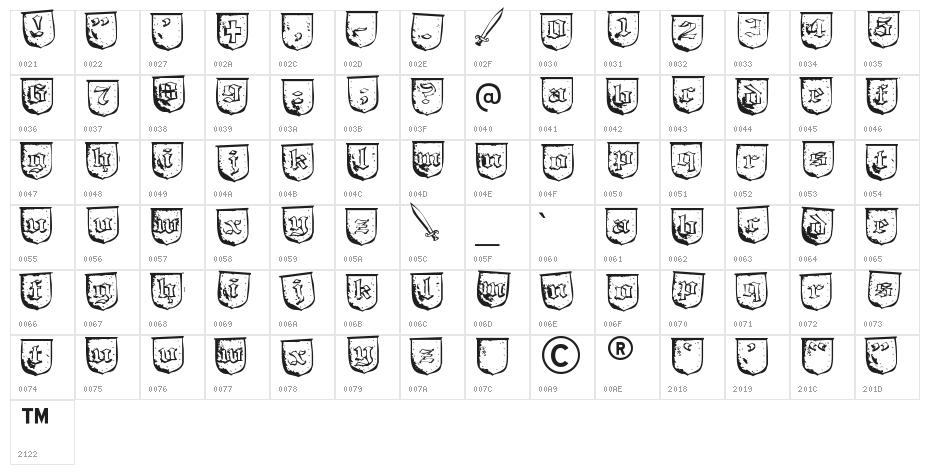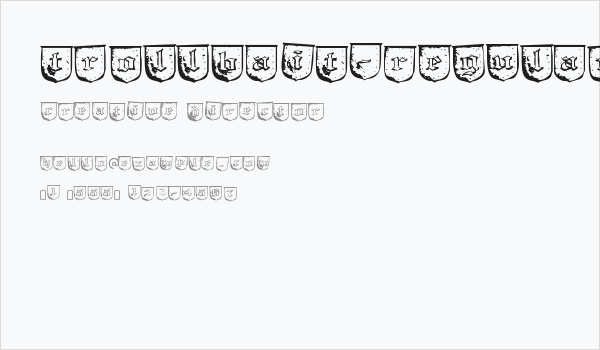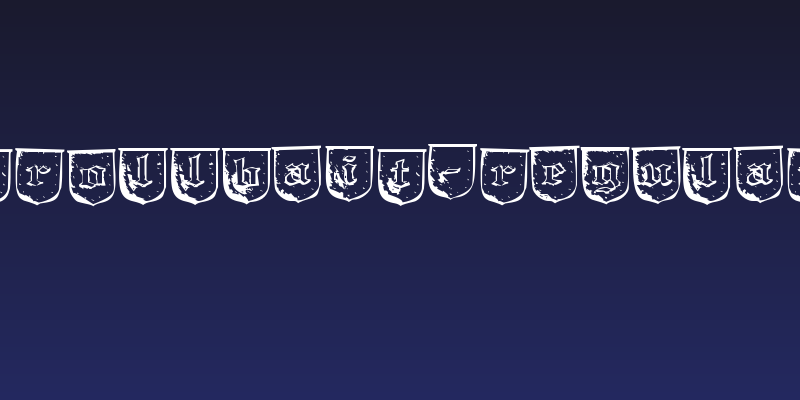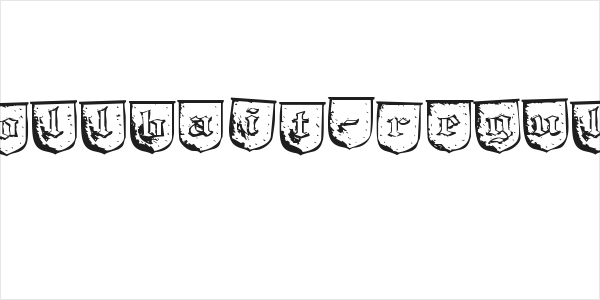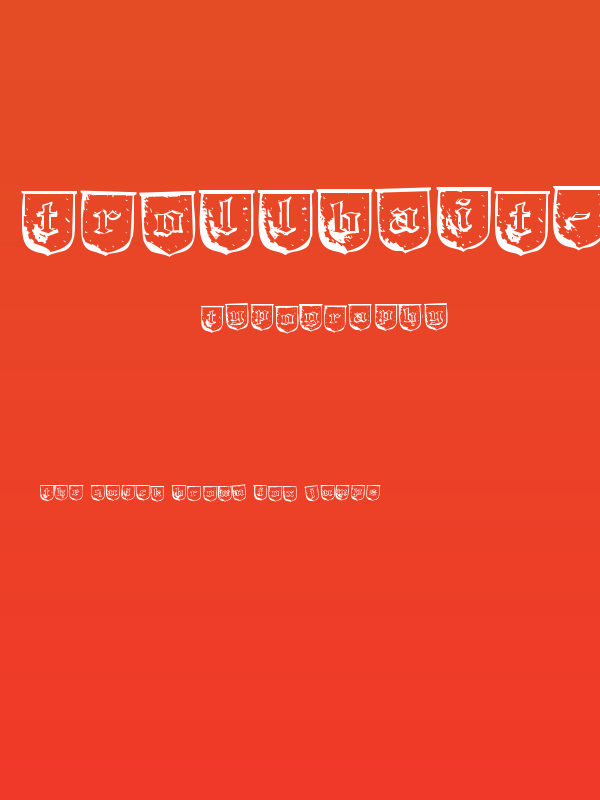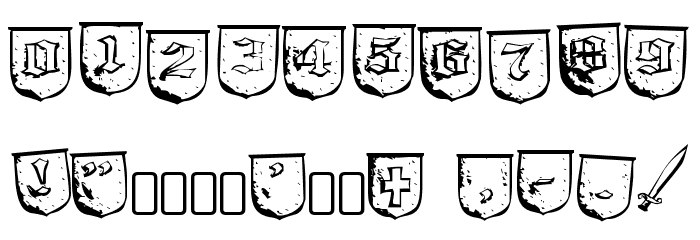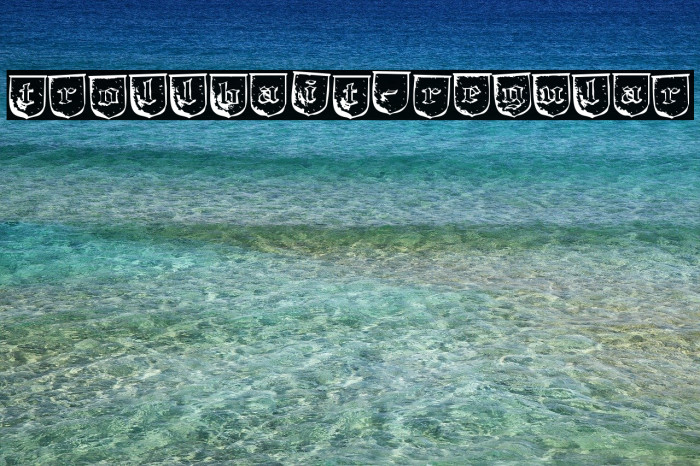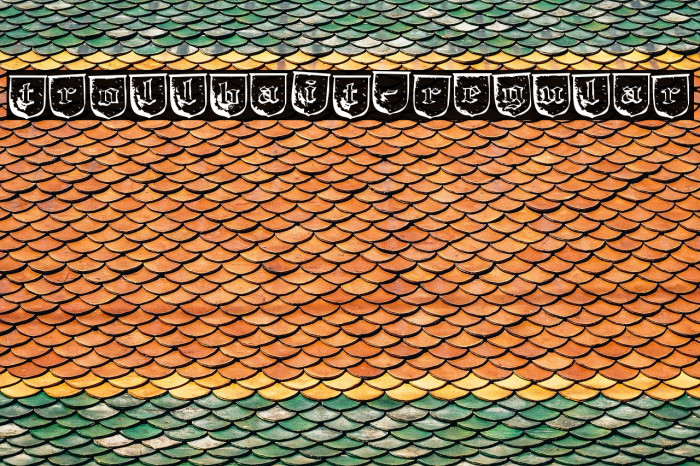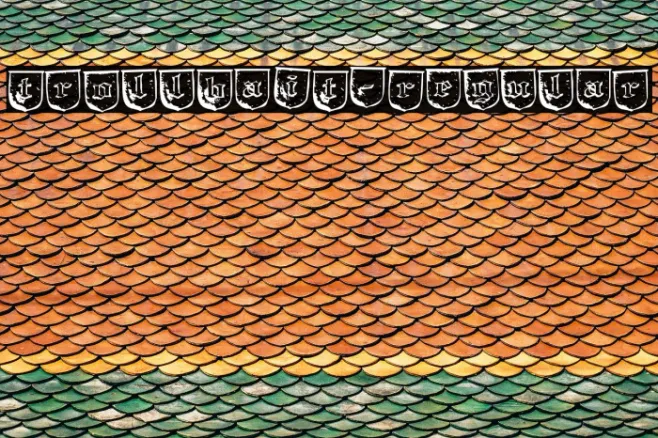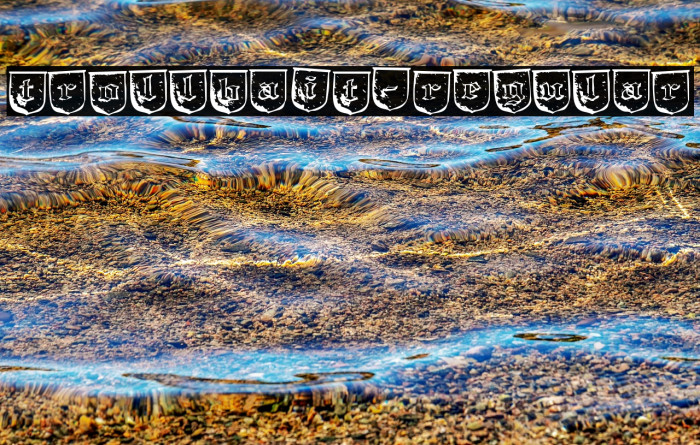
TrollBait-Regular Font
TrollBait-Regular Description
This font features a medieval, gothic style with each character enclosed in a shield-like shape, giving it a distinct and bold appearance. The letters are ornate, with intricate details and a slightly distressed texture that adds to its vintage charm. The uppercase and lowercase letters maintain a consistent style, with sharp edges and decorative elements. Numbers and special characters are also included, each following the same shield motif. This font is perfect for projects that require a historical or fantasy theme, offering a unique and eye-catching design.
| Use Case | Logos, Posters, Themed Events |
| Proposed Projects | Ideal for fantasy-themed designs, historical event posters, video game graphics, and themed invitations. |